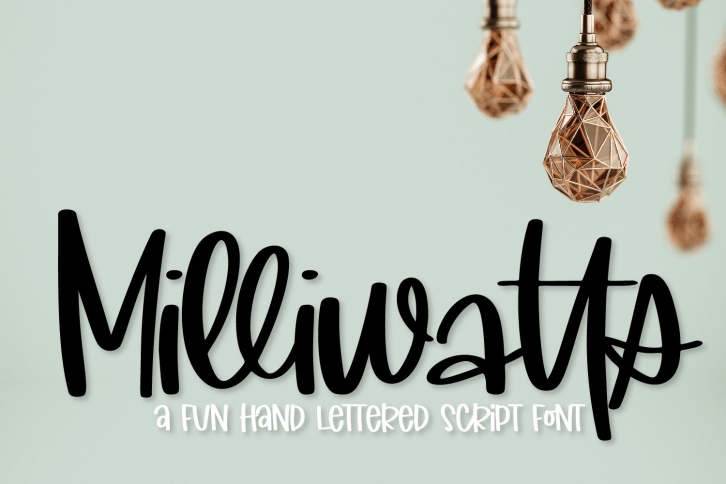
Milliwatts - A Fun Hand Lettered Script Font Download
Milliwatts is a gorgeous font that was realeased on September 9, 2020. The font can be used in many style contexts and design environments. Perfect for invitations, magazines, websites, logos, and more! It was designed by Justina Tracy and the file size is 6.43 MB. Thanks for checking out this font!